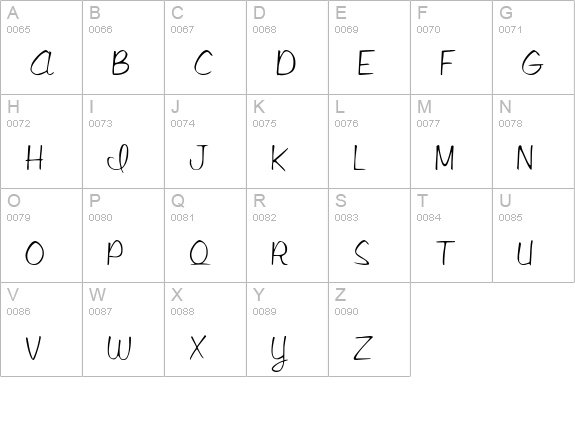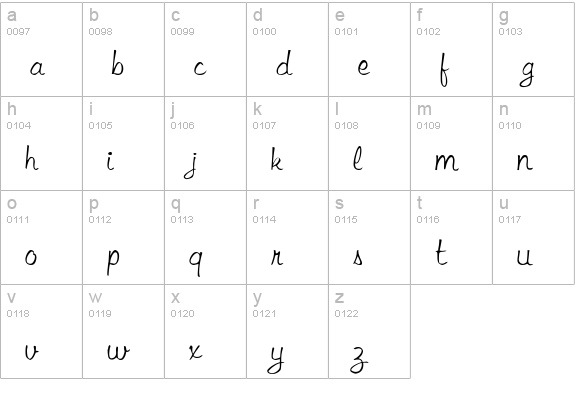
LibbyScript2 Font Details
Introducing LibbyScript2 font, a stunning and versatile typeface that effortlessly combines elegance with a touch of flair. This script font is perfect for adding a unique and sophisticated look to your projects, whether it's invitations, branding, or social media graphics. With its flowing lines and graceful curves, LibbyScript2 font exudes charm and personality. Its stylish yet readable design makes it a great choice for a wide range of applications, from wedding stationery to logo design. Best of all, LibbyScript2 font is completely free to download at FontsMarket.com. So go ahead and elevate your designs with this beautiful and expressive font today!